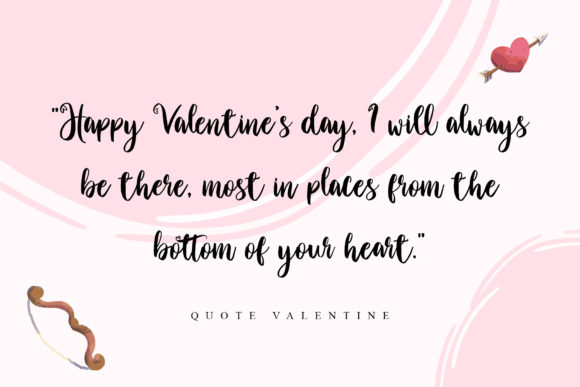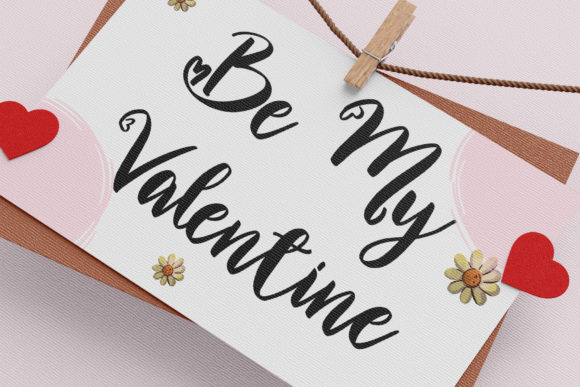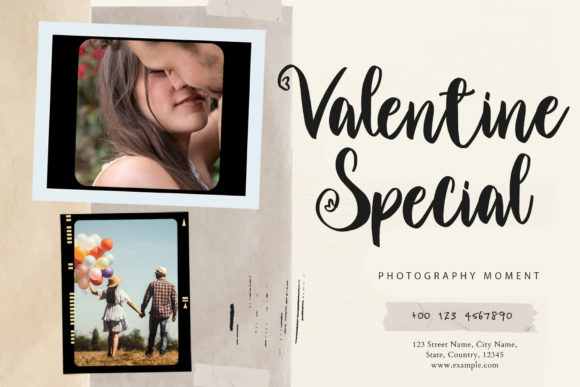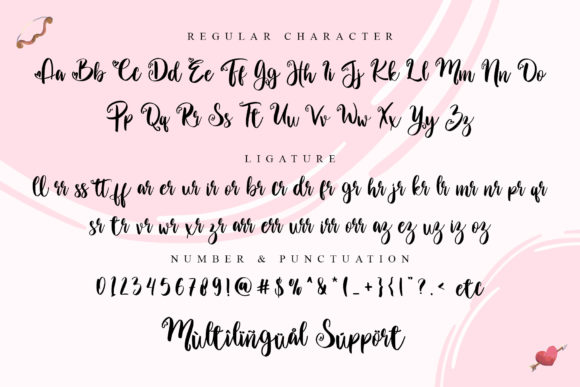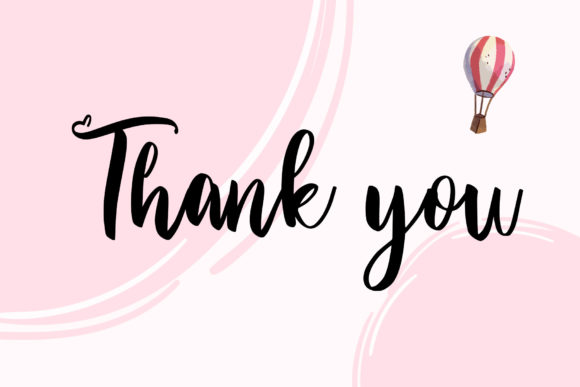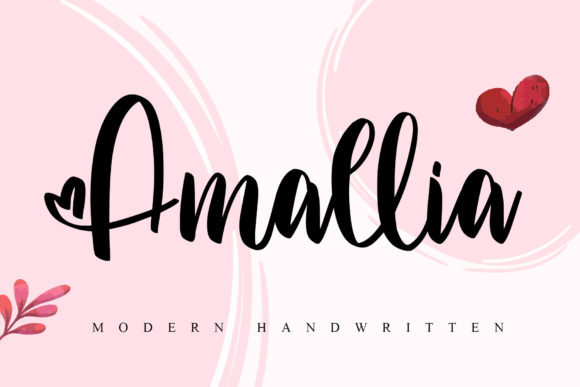
Ammallia Font: The Enchanting Handwritten Font for Your Creative Projects
Are you a designer or crafter looking for a unique and captivating font to add a touch of magic to your projects? Look no further than Ammallia Font, an enchanting handwritten font that is sure to leave a lasting impression. In this article, we’ll dive into the world of Ammallia Font, exploring its features, benefits, and uses, and why it’s a must-have for any creative professional.
What is Ammallia Font?
Ammallia Font is a beautifully crafted handwritten font that exudes elegance and sophistication. Its enchanting curves and swashes make it perfect for a wide range of creative projects, from wedding invitations and branding materials to digital products and craft projects. With its PUA (Private Use Area) encoding, Ammallia Font offers effortless access to all glyphs and swashes, making it easy to use and customize.
Key Features of Ammallia Font
- PUA Encoded: Ammallia Font is PUA encoded, allowing for easy access to all glyphs and swashes, making it simple to use and customize.
- Handwritten Style: Ammallia Font boasts a beautiful, natural handwritten style that adds a personal touch to any project.
- Enchanting Curves and Swashes: The font features intricate curves and swashes that add a touch of magic to your designs.
- Multilingual Support: Ammallia Font supports multiple languages, making it a versatile choice for designers and crafters worldwide.
Benefits of Using Ammallia Font
So, why choose Ammallia Font for your creative projects? Here are just a few benefits of using this enchanting font:
- Adds a Personal Touch: Ammallia Font’s handwritten style adds a personal touch to your designs, making them stand out from the crowd.
- Versatile: The font’s elegant curves and swashes make it suitable for a wide range of projects, from formal to informal.
- Easy to Use: With its PUA encoding, Ammallia Font is easy to use and customize, even for those without extensive design experience.
- High-Quality: Ammallia Font is a high-quality font that is designed to deliver exceptional results, ensuring your projects look professional and polished.
Uses of Ammallia Font
Ammallia Font is a versatile font that can be used in a variety of creative projects, including:
- Wedding Invitations: Add a touch of elegance and romance to your wedding invitations with Ammallia Font.
- Branding Materials: Use Ammallia Font to create stunning branding materials, such as logos, business cards, and letterheads.
- Digital Products: Ammallia Font is perfect for digital products, such as ebooks, workbooks, and planners.
- Craft Projects: Add a personal touch to your craft projects, such as handmade cards, scrapbooking, and DIY projects.
Tips for Using Ammallia Font
To get the most out of Ammallia Font, here are a few tips to keep in mind:
- Experiment with Swashes: Ammallia Font’s swashes are designed to add a touch of magic to your designs. Experiment with different swashes to find the perfect combination for your project.
- Mix and Match: Don’t be afraid to mix and match Ammallia Font with other fonts to create a unique and eye-catching design.
- Pay Attention to Kerning: Make sure to adjust the kerning of your text to ensure that Ammallia Font looks its best.
In conclusion, Ammallia Font is an enchanting handwritten font that is sure to add a touch of magic to your creative projects. With its PUA encoding, elegant curves, and swashes, Ammallia Font is a versatile and high-quality font that is perfect for designers and crafters worldwide. Whether you’re creating wedding invitations, branding materials, digital products, or craft projects, Ammallia Font is a must-have font that is sure to deliver exceptional results.